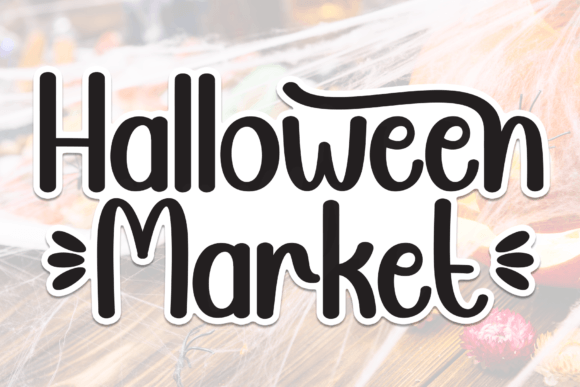
Dive into the enchanting realm of calligraphy with Halloween Market Font, a captivating handwritten display font that exudes warmth and playfulness like no other. Enter a world where letters dance with delight, intertwining to form elegant shapes that capture the essence of joy and festivity.
Crafted by the talented William Jhody, Halloween Market Font is a masterpiece of digital artistry, infusing your designs with a touch of whimsy and wonder. Its meticulously designed characters are a symphony of curves and flourishes, each stroke imbued with a sense of jubilation.
Step into a universe where creativity knows no bounds, where your invitations, cards, and designs are transformed into enchanting works of art. Halloween Market Font is the perfect companion for those who seek to add a touch of magic to their creations.
With Halloween Market Font, you'll discover a world of possibilities. Create wedding invitations that captivate the heart, greeting cards that spread cheer, and social media posts that spark joy. Unleash your imagination and let the font guide you on an artistic journey like never before.
Whether you're a seasoned designer or just starting your creative adventure, Halloween Market Font is the perfect tool to elevate your designs. Its user-friendly nature makes it accessible to all, allowing you to effortlessly add a touch of elegance and charm to your projects.
So, embrace the magic of Halloween Market Font and embark on a journey of creative discovery. Let your imagination soar as you craft designs that resonate with beauty, creativity, and pure joy. Welcome to a world where fonts come alive, and your designs reach new heights of excellence.